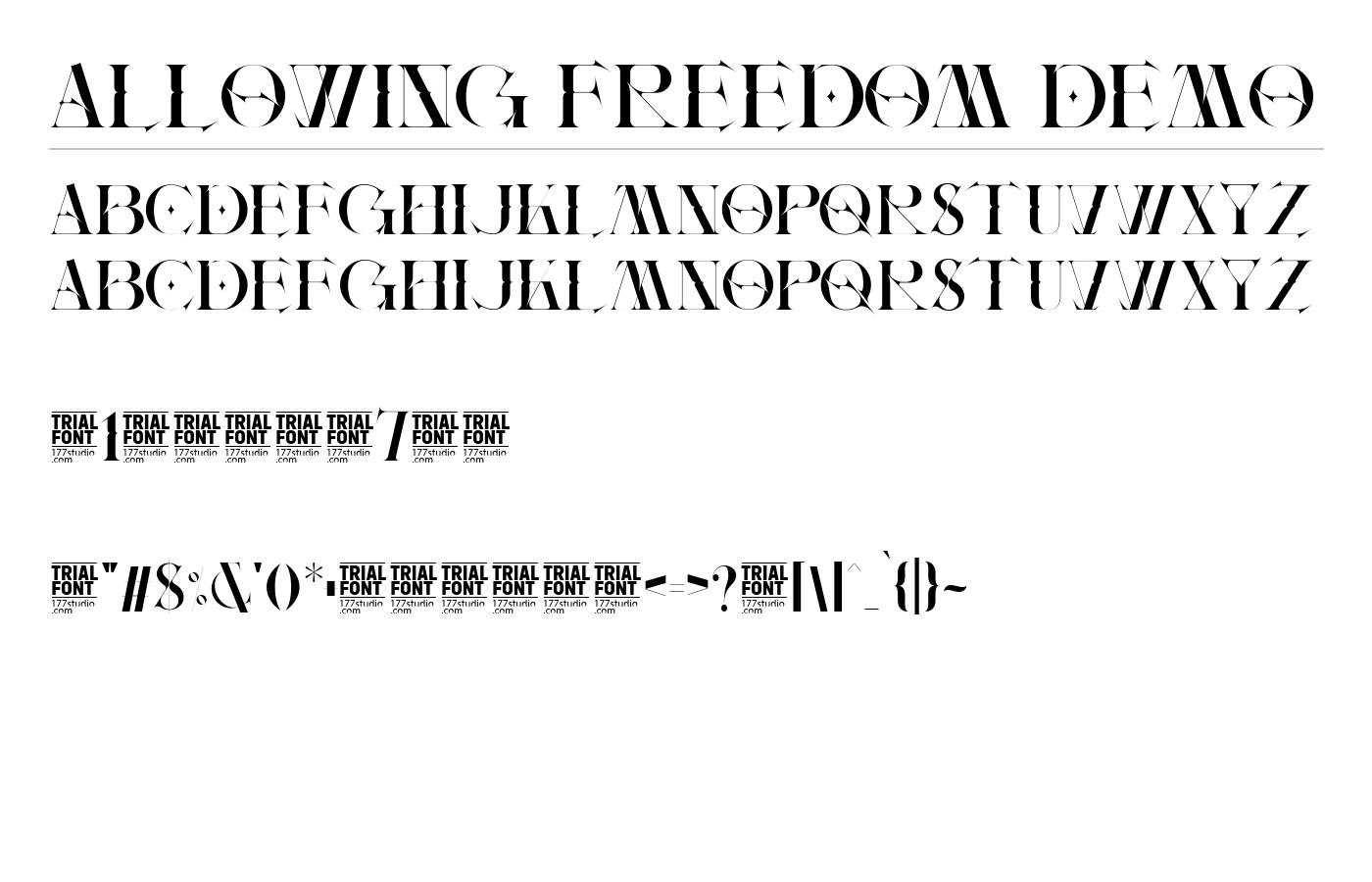
Allowing Freedom Demo is a striking serif font with a modern, high-contrast style that features sharp, geometric cuts and decorative diamond-shaped elements within the letterforms. Its tall, narrow structure and elegant strokes give it a bold, sophisticated personality perfect for luxury branding, headlines, and editorial use where a unique and artistic touch is desired. This font stands out best in large sizes, making it ideal for fashion, packaging, and display designs that need a dramatic and refined visual impact.
Allowing Freedom Demo Font
About Allowing Freedom Demo Font